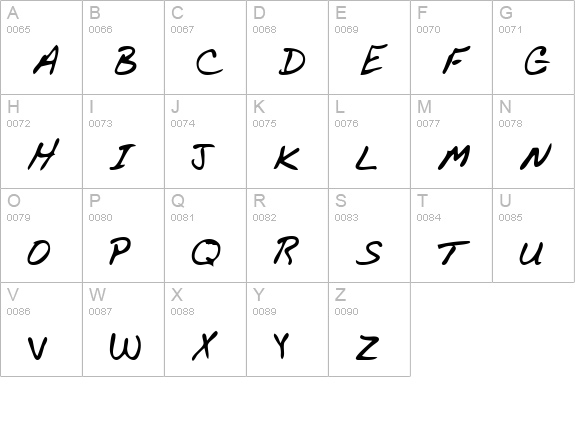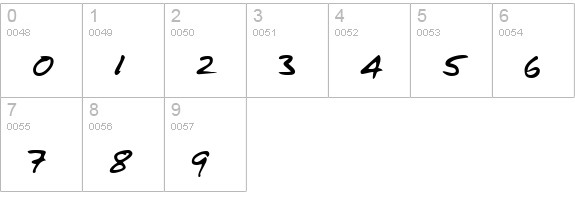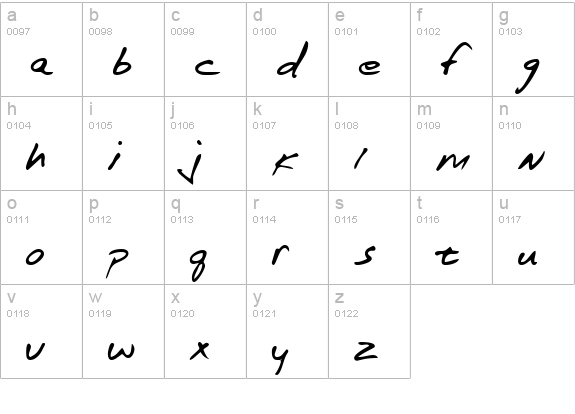
LannysHand Regular Font Details
LannysHand Regular is the standard, neutral variant in the LannysHand typeface family \xE2\x80\x94 well suited to general body text, paragraphs, and standard typographic work.
LannysHand Regular font is a stylish and versatile typeface that adds a personal touch to any design project. With its elegant and flowing strokes, this font captures the essence of handwritten text, making it perfect for adding warmth and authenticity to your creations. Whether you're designing invitations, greeting cards, or branding materials, LannysHand Regular font will effortlessly elevate your designs to the next level. Its balanced letterforms and smooth curves create a harmonious visual experience, ensuring readability and legibility across various mediums. One of the most remarkable features of LannysHand Regular font is that it is freely available to download at FontsMarket.com. This means that you can enhance your designs without any financial constraints, making it an ideal choice for both personal and commercial projects. Furthermore, LannysHand Regular font offers a wide range of characters, including uppercase and lowercase letters, numerals, punctuation marks, and special symbols. This extensive character set allows you to express your creativity and communicate your message effectively. Compatible with both Mac and Windows operating systems, LannysHand Regular font is easy to install and use. Its versatility and adaptability make it suitable for a variety of design applications, from digital media to print materials. In conclusion, LannysHand Regular font is a must-have for designers and creatives seeking a free, yet high-quality handwritten typeface. With its impeccable design and freely available download option at FontsMarket.com, this font is a valuable asset that will elevate your design projects and captivate your audience.